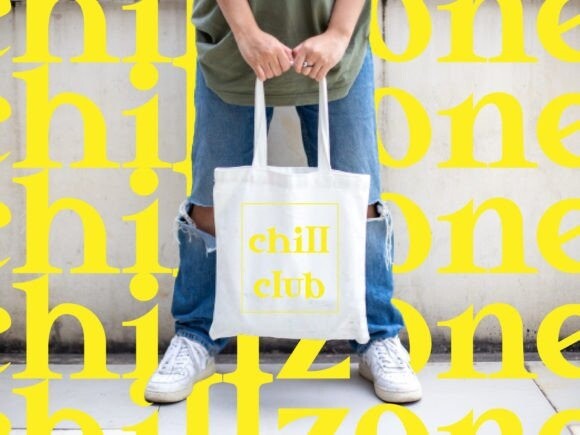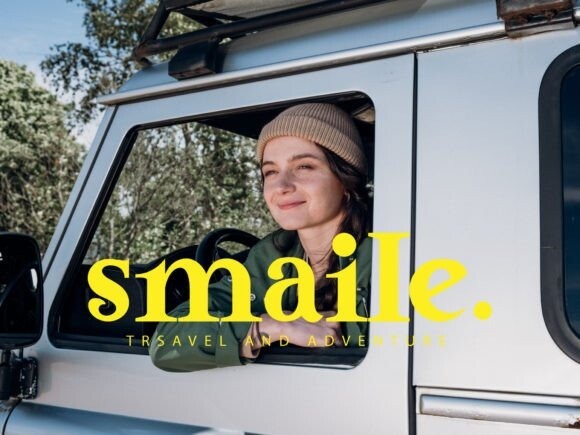
Koalanation Font
Koalanation is a modern and stylish serif font. Featuring the right amount of trendiness, this font is suitable for a wide spectrum of applications.